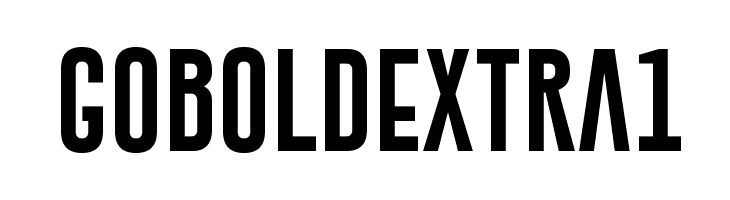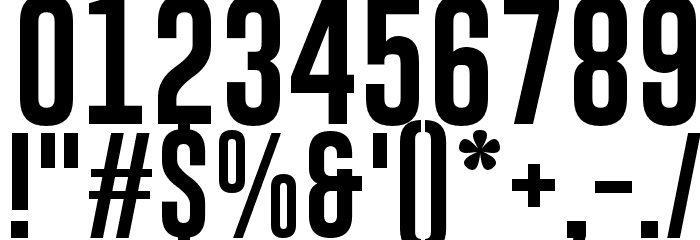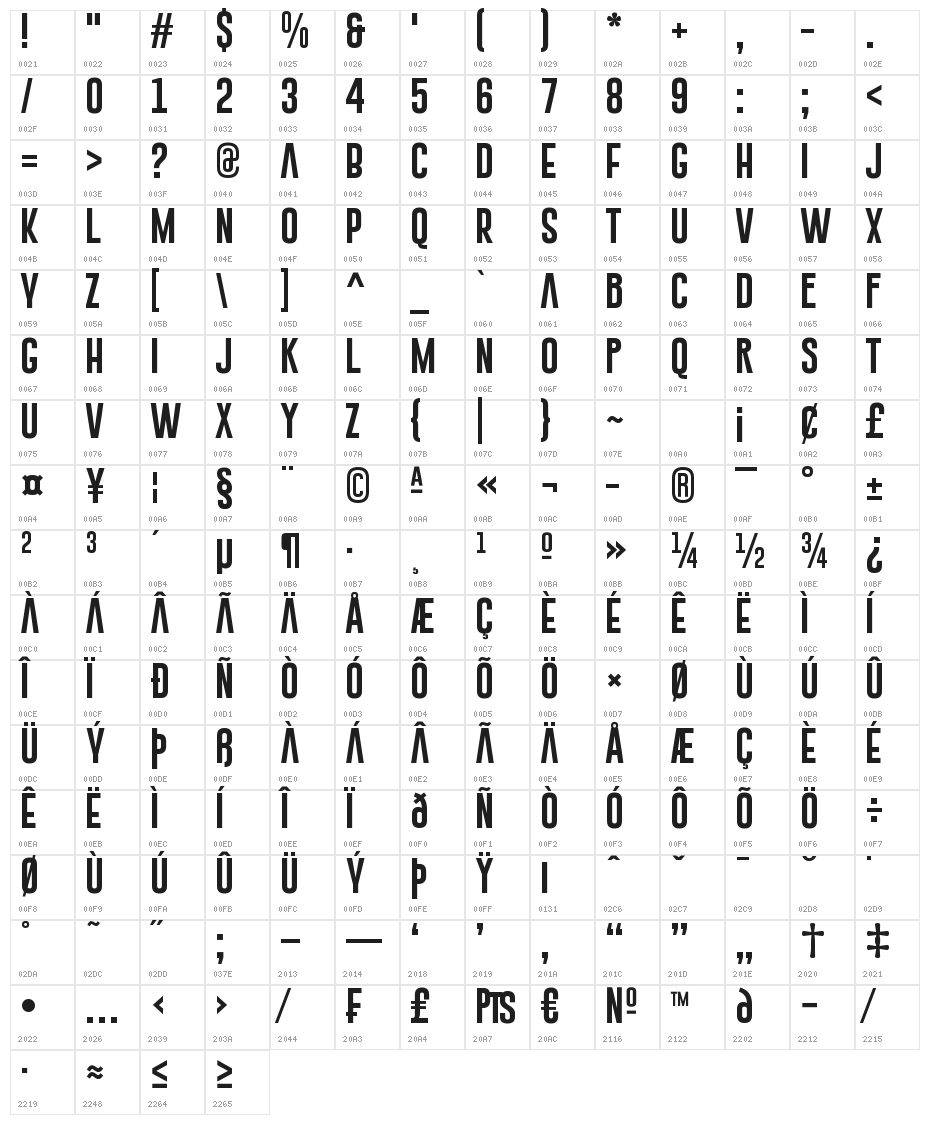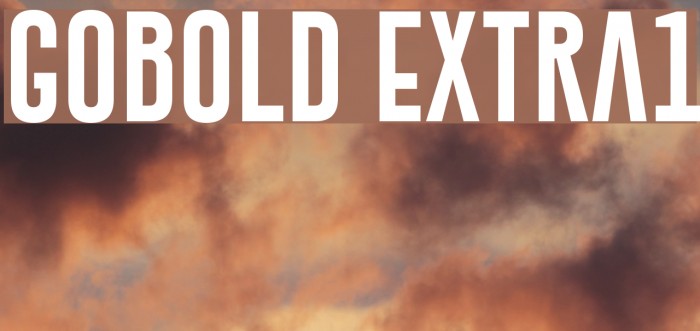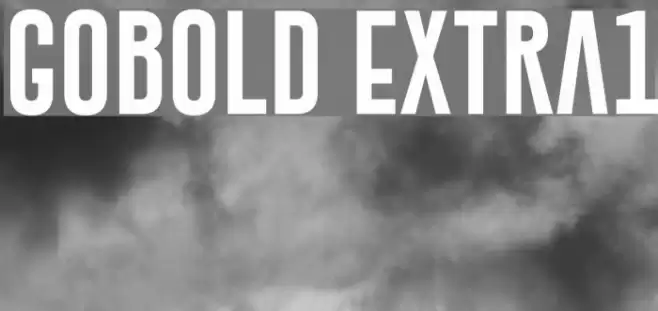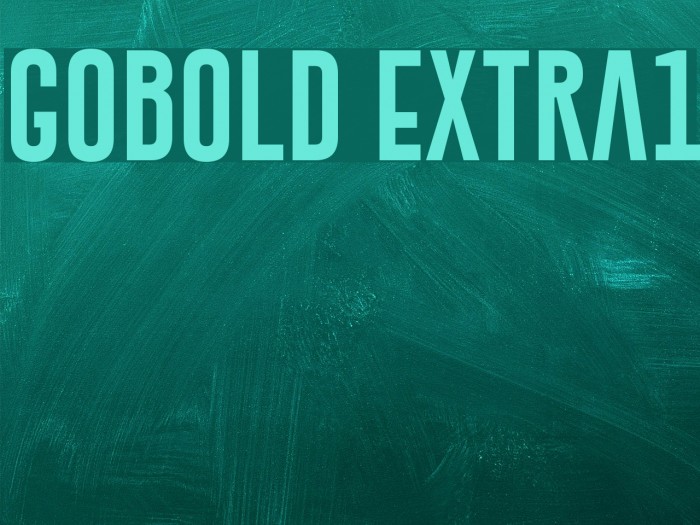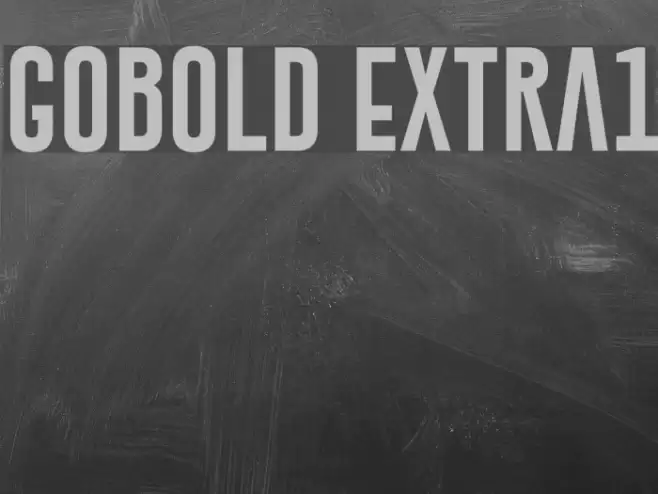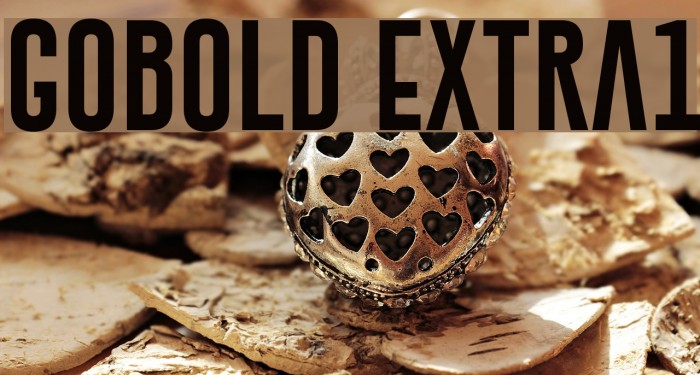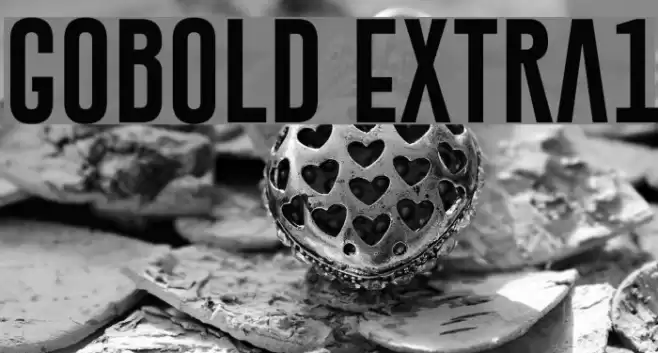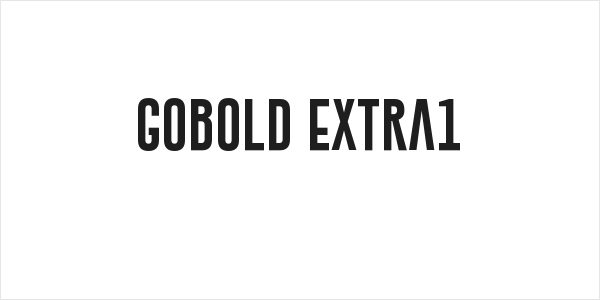
Gobold Extra1 Font
Gobold Extra1 Description
This font features a bold and impactful design, characterized by its tall, narrow letterforms and strong geometric shapes. The uppercase letters are particularly striking, with a consistent height and width that convey a sense of stability and strength. The lowercase letters maintain the same boldness, offering a cohesive look across all text. Numbers and special characters are designed with the same attention to detail, ensuring readability and uniformity. The overall appearance is modern and assertive, making it suitable for projects that require a strong visual presence.